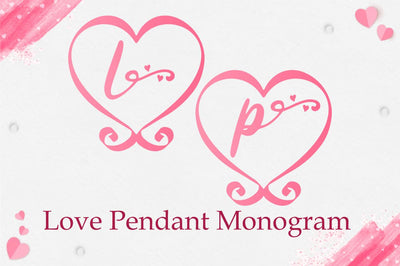
Love Pendant Monogram
Love Pendant Monogram is a lovely decorative font, Fall in love with beautiful lovely designs for your special occasions, business designs, logos, branding, social media posts, and wedding cards.
Comes in 2 styles, with and without decoration on each letter inside.
Just simply change between uppercase and lowercase to see the different styles!